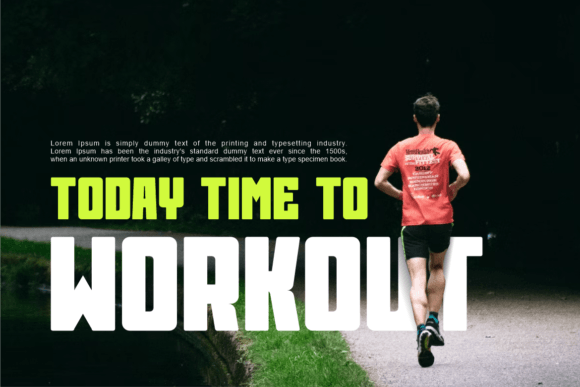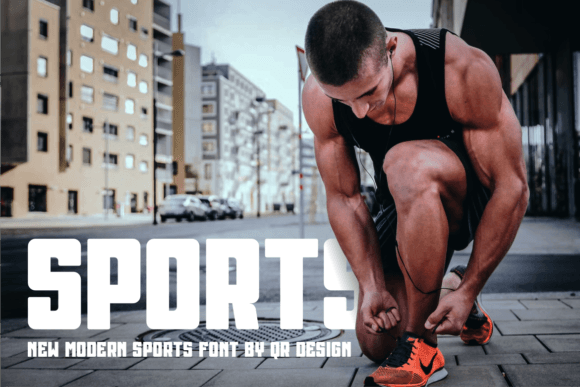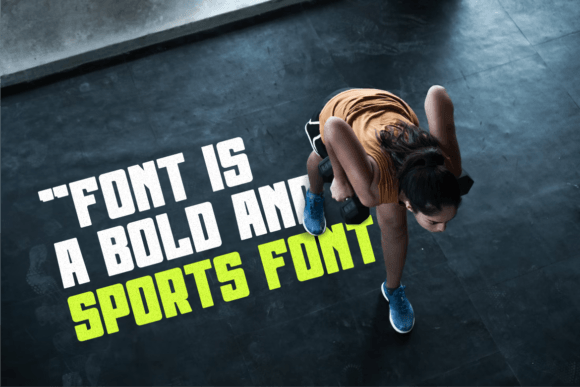
Introduction to Merchy Sportnes Font
Merchy Sportnes is a bold and authentic sans serif font.
The font is suitable for any branding project like logo, t-shirt printing, e-sport, and many more It will look outstanding in a wide range of contexts.
Merchy Sportnes Font offers exceptional quality and versatility, making it a valuable addition to your design toolkit. Whether you’re creating for personal projects or commercial use, Merchy Sportnes Font delivers professional results.